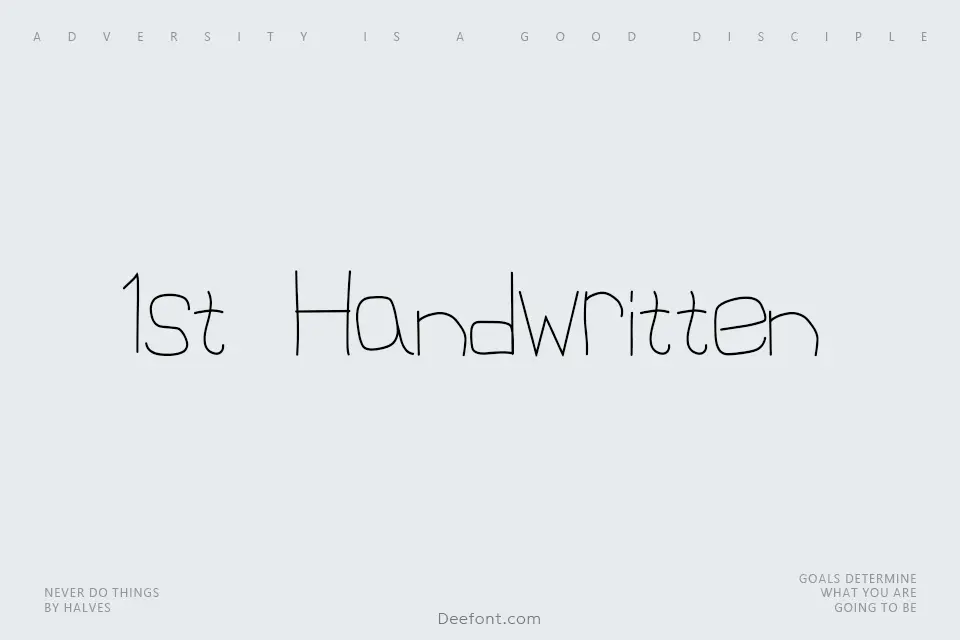
1st Handwritten Font
1st Handwritten is a light, casual script that mimics real pen strokes with thin, slightly uneven lines and relaxed spacing. Its friendly, personal feel makes it ideal for social graphics, handwritten-style logos, greeting cards, informal invitations, packaging, quote posts and other warm lifestyle branding.